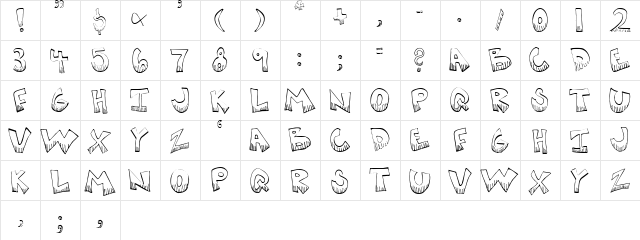
KrazyKool Normal
Design Context for KrazyKool Typeface
KrazyKool is a composed and adaptable typeface that performs quietly and consistently across a wide range of design contexts.